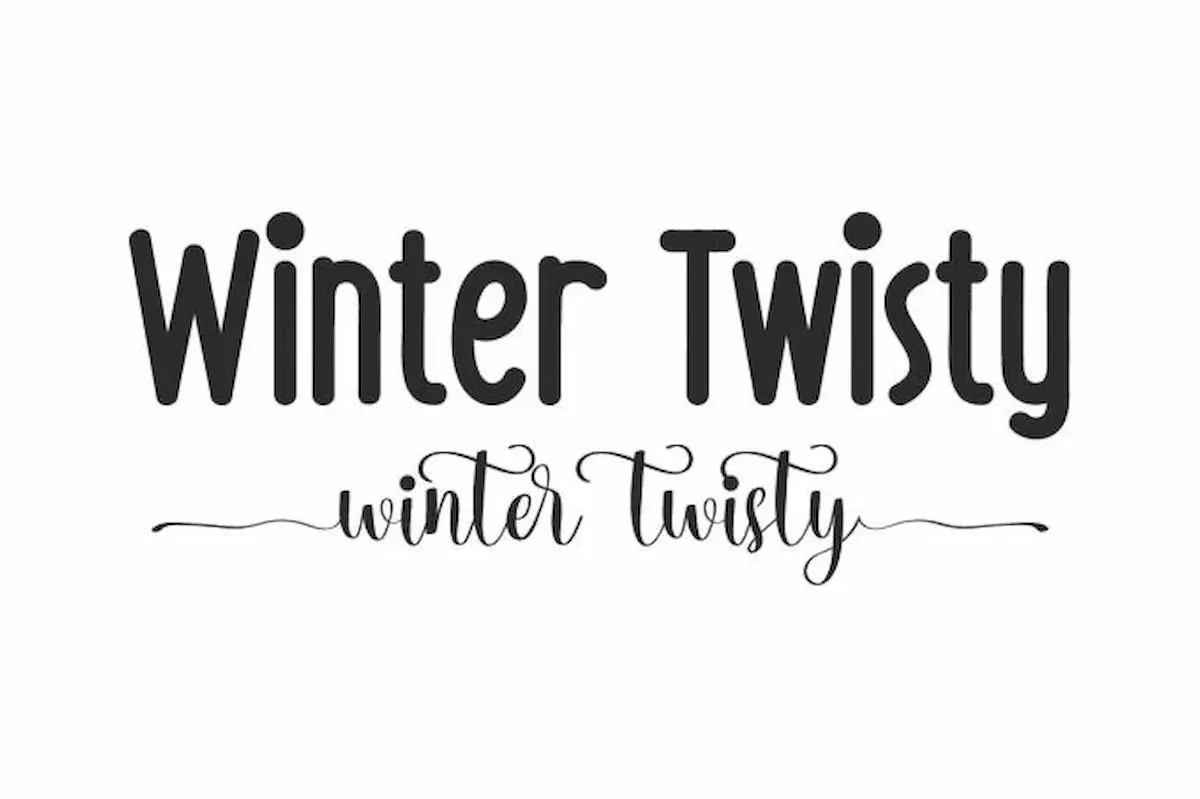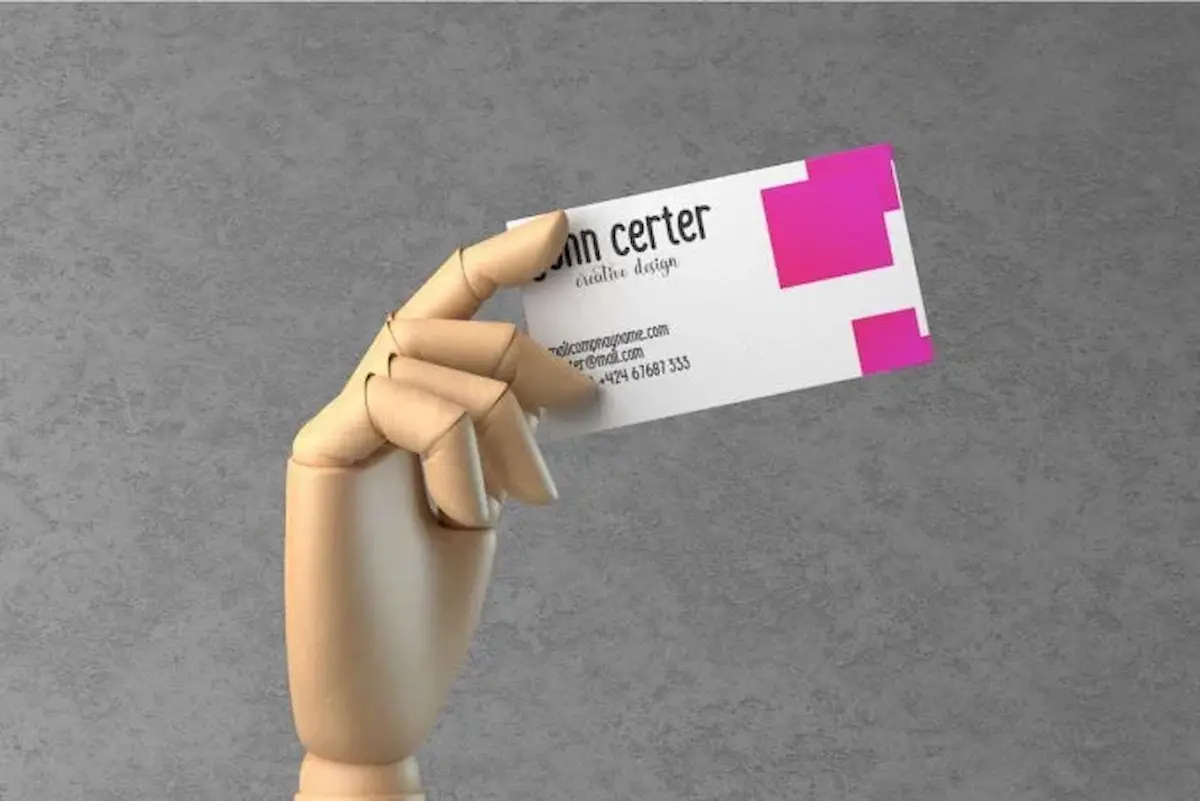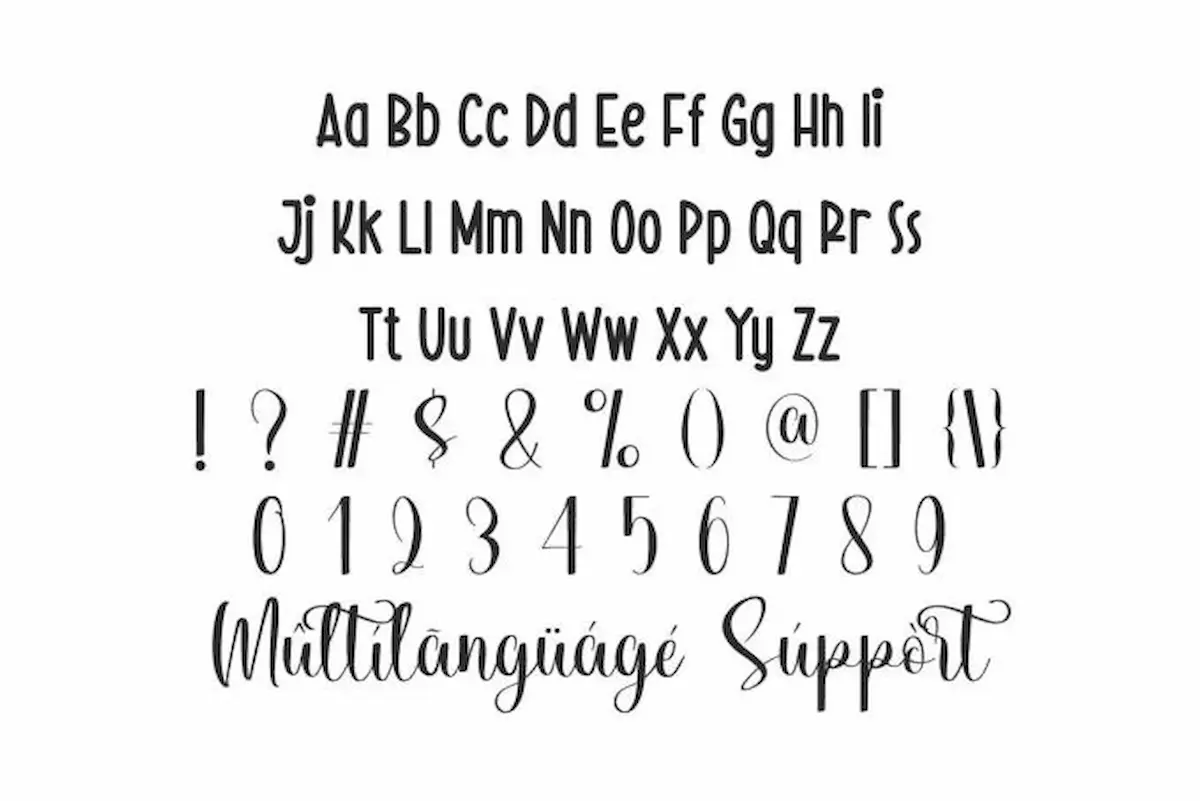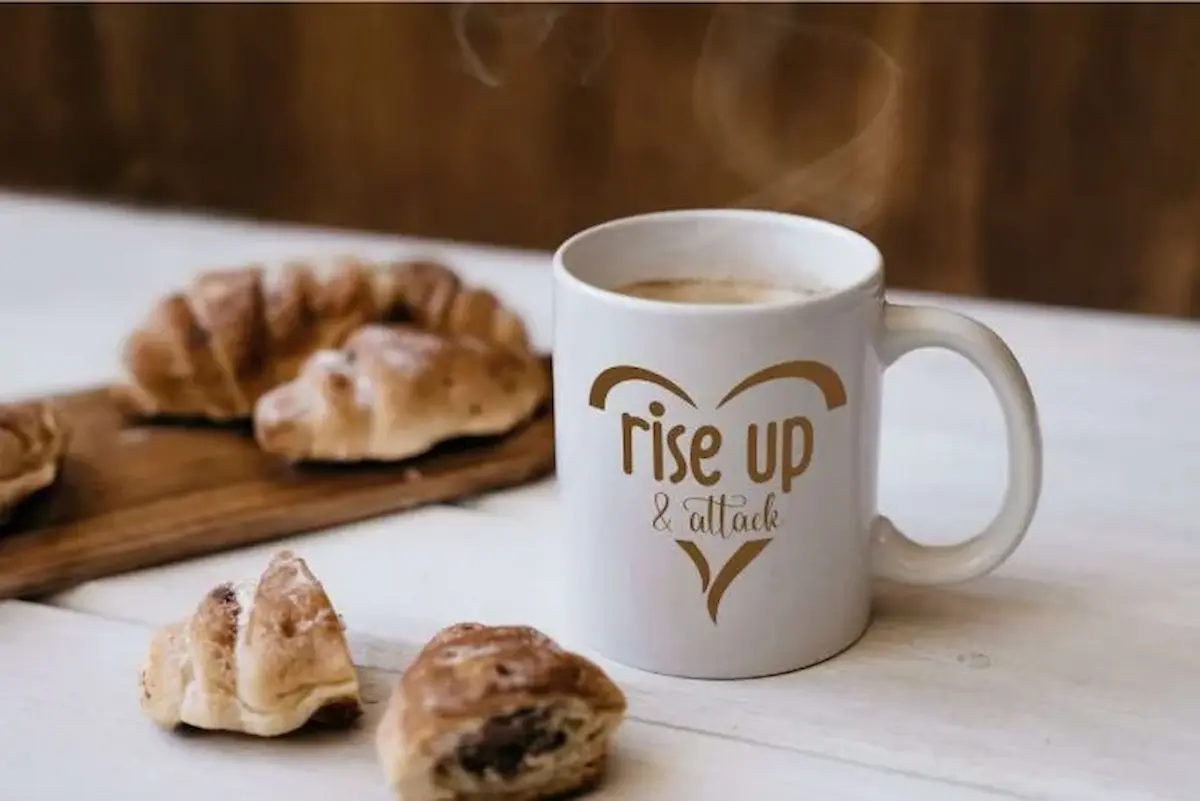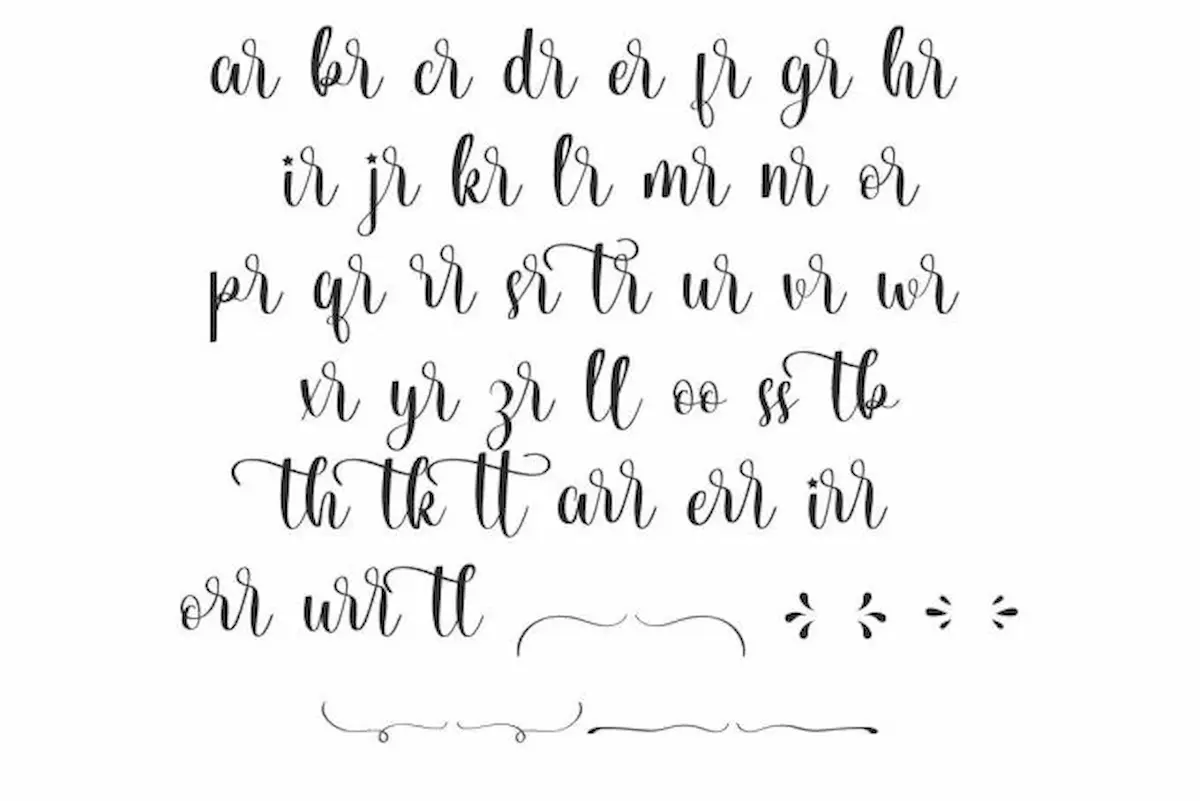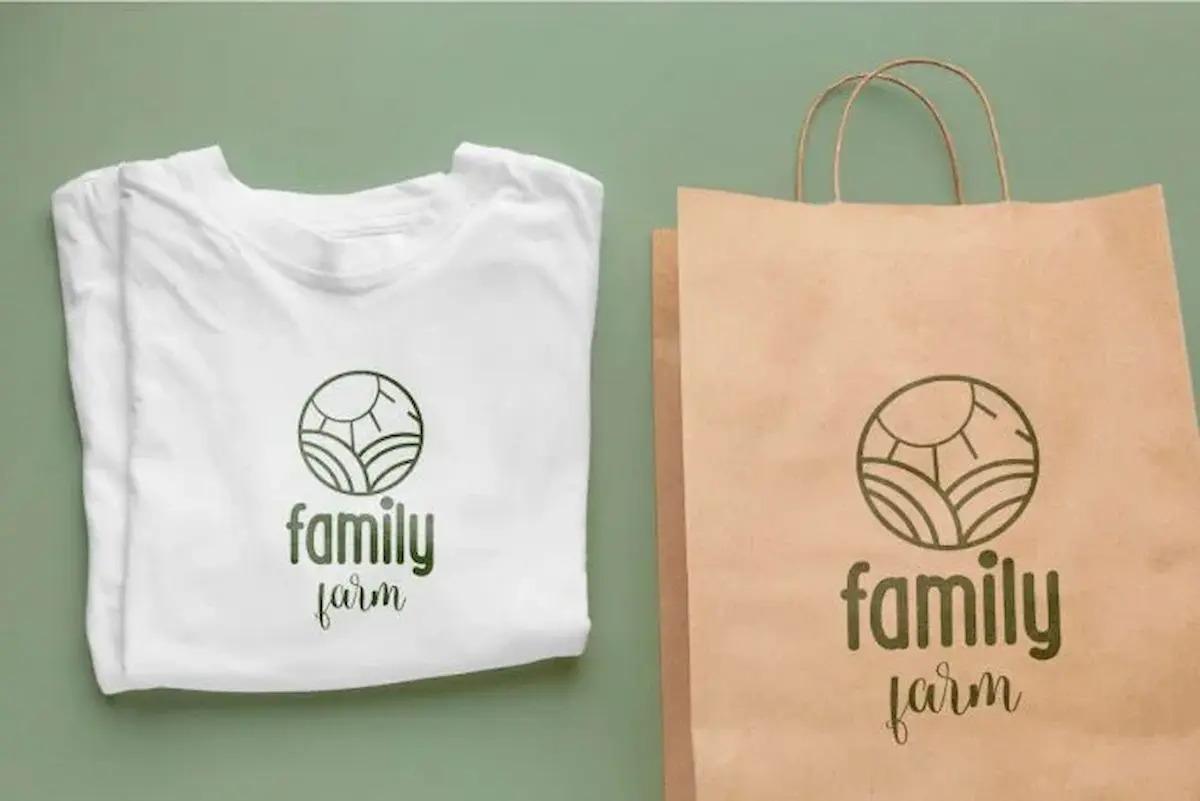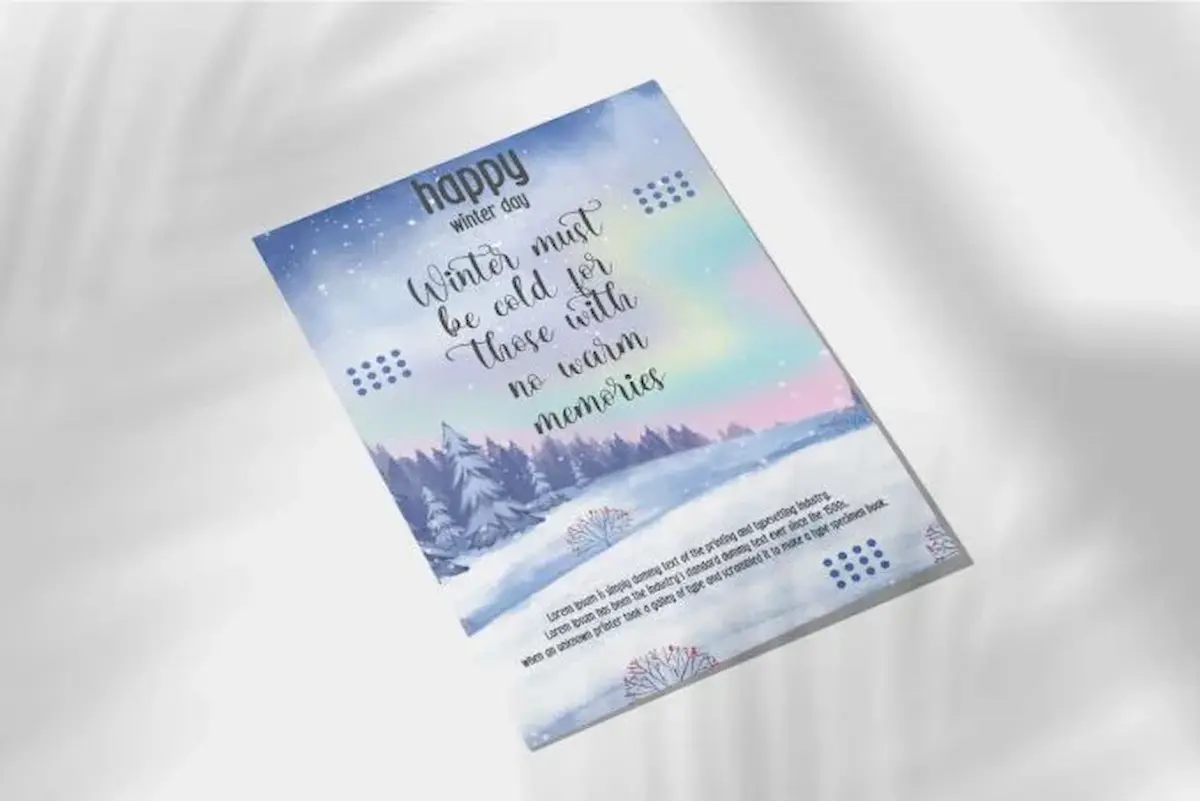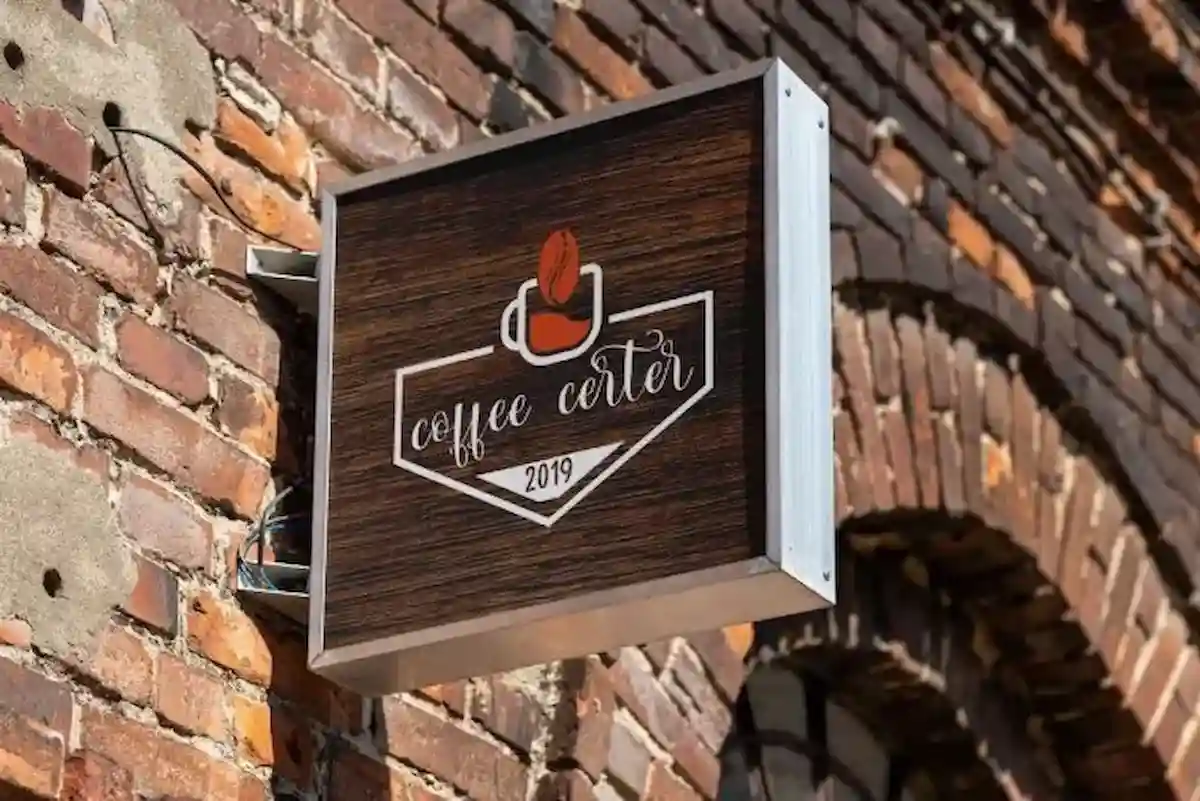
Winter Twisty Font Duo
Winter Twisty Font is a font duo combining modern calligraphy & fun display sans serif font. Use both font styles together to make your designs projects standout the crowds.
Winter Twisty Font is a font duo combining modern calligraphy & fun display sans serif. Add this fresh and versatile font to any of your creations, both formal and informal, and you will love the impact it has on them. Both styles can be combined together perfectly. It’s perfect for making business card, flyer, logos, mug, quotes, shopping bag, signage, t-shirts and more!
Winter Twisty Font is PUA encoded which means you can access all of the glyphs and swashes with ease! This dynamic duo includes numbers, punctuation, ligatures, swoosh and multilingual support. Perfect duo font with a unique and elegant feel. You can use any of the font styles to many business projects such as : bakery, café, fashion, kids, school, restaurant, writers, makeup artist, real estate agent etc.